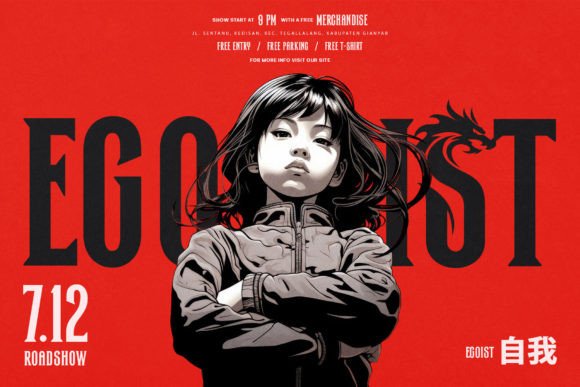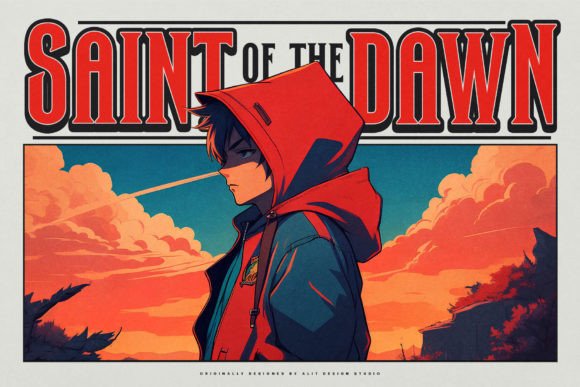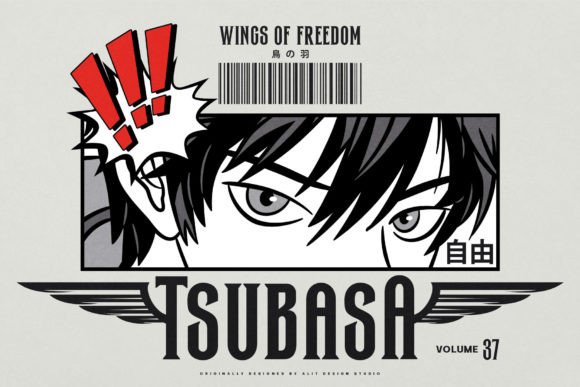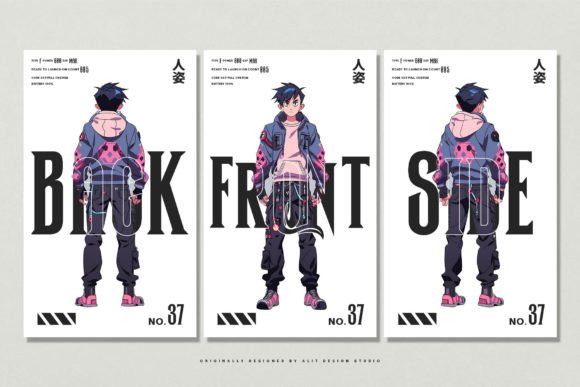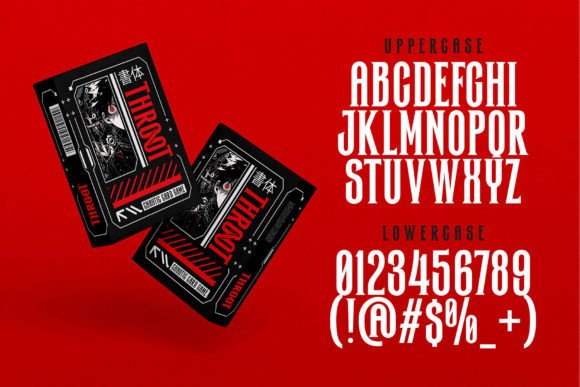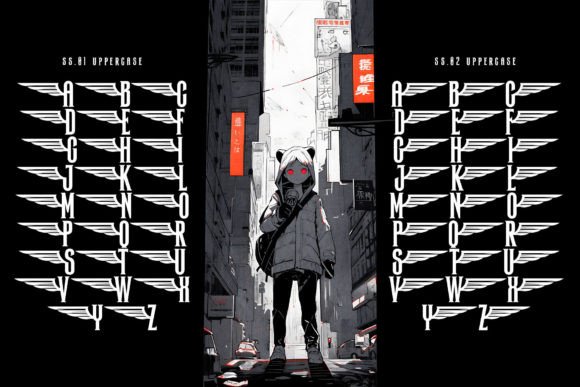
Introduction to Power of Dragon Font
Introducing “Power of Dragon” Typeface – Unleash Your Inner Hero.
Unleash the extraordinary with our “Power of Dragon” Typeface, a bold and dynamic serif display font designed for those who aspire to be legendary Embrace the spirit of a super hero anime with this powerful typeface that combines strength, elegance, and a touch of fantasy.
Key Features of Power of Dragon Font
Why Choose Power of Dragon Font?